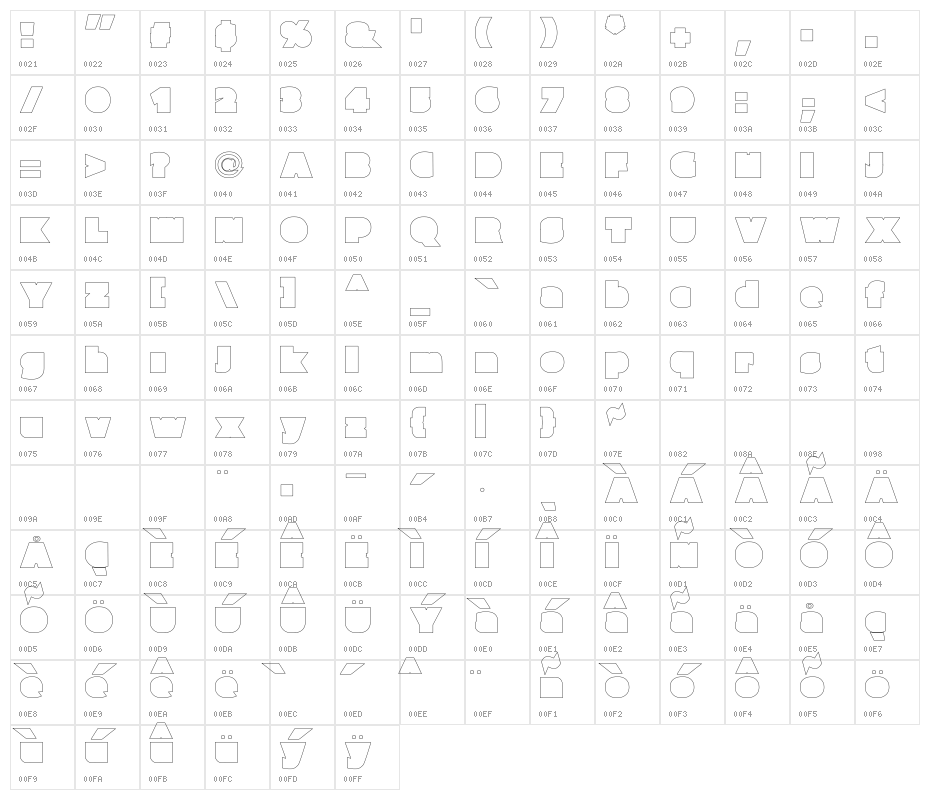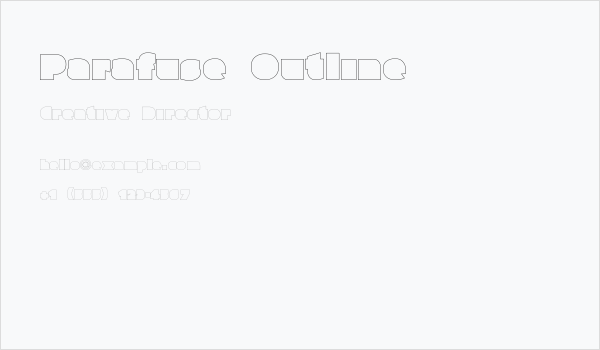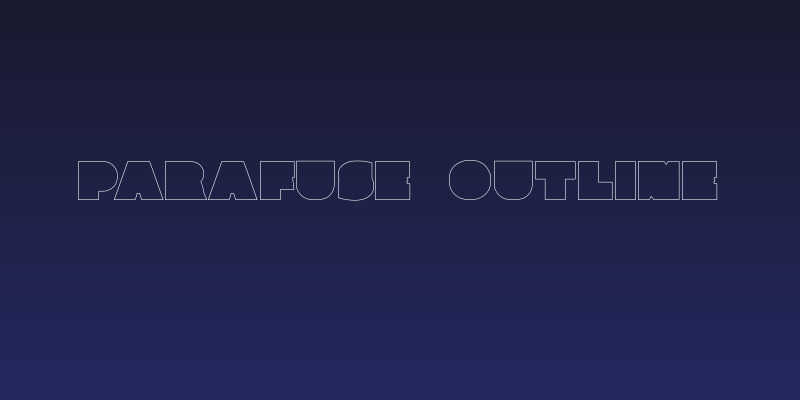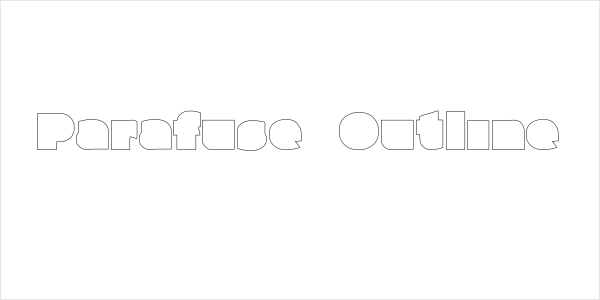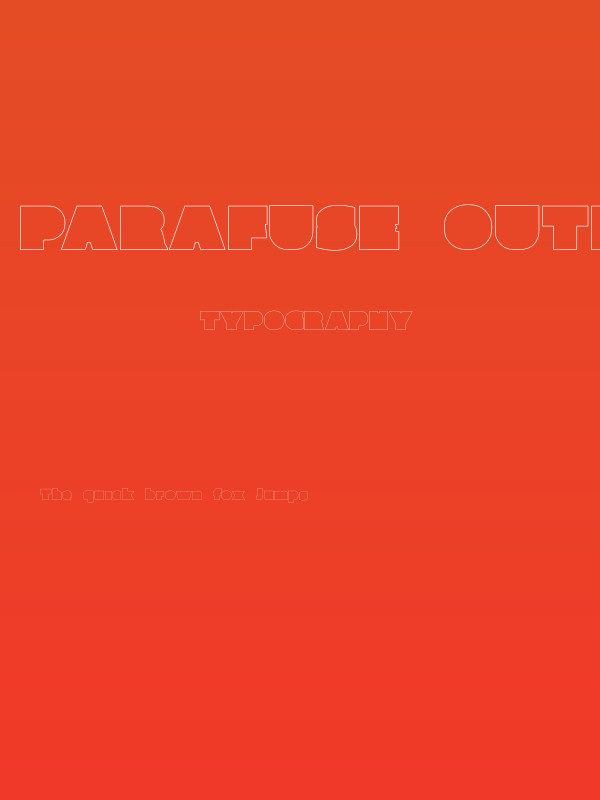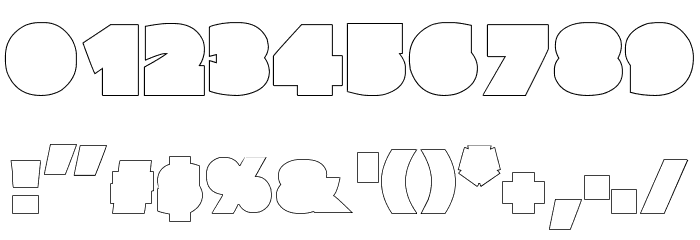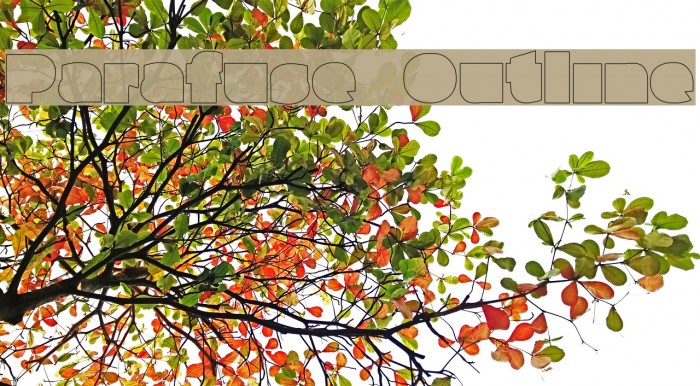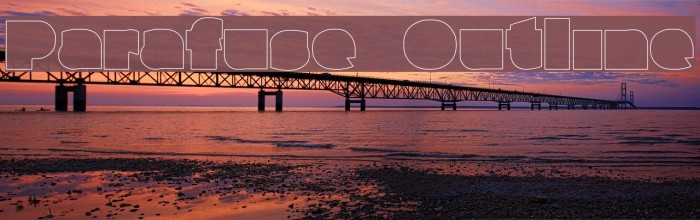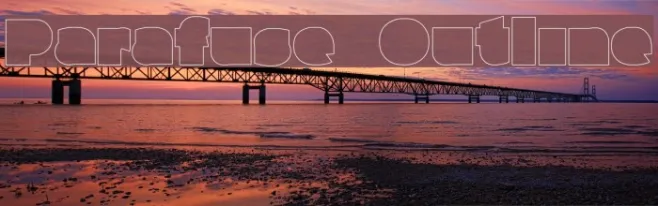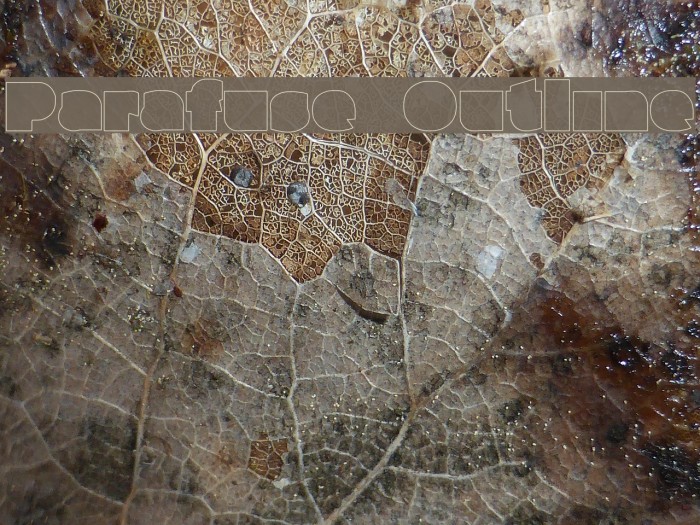
Parafuse Outline Font
Parafuse Outline Description
This font features a bold, geometric outline style with a modern and playful aesthetic. The characters are constructed with thick, uniform strokes that create a strong visual impact. The uppercase and lowercase letters maintain a consistent design, emphasizing angular and rounded shapes that give the font a unique, futuristic look. The numbers and special characters follow the same design principles, ensuring a cohesive appearance across all glyphs. This font's outline style makes it ideal for projects that require a standout, eye-catching typeface.
| Proposed Projects | Ideal for branding, posters, headlines, and any design needing a bold, modern touch. |